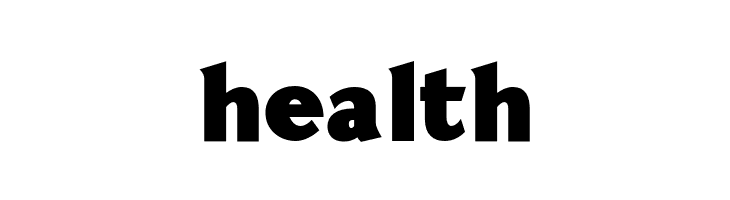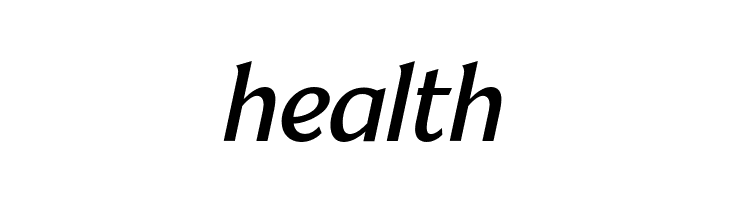
• YorkieDEMO-SemiBoldItalic
A semi-bold italic font with a dynamic and compact style, featuring moderate stroke contrast.
• YorkieDEMO-BoldItalic
A bold and italicized font with strong, dynamic strokes.
• YorkieDEMO-ExtraLight
A refined and elegant font with sleek, elongated characters and a modern twist.
• YorkieDEMO-ExtraBoldItalic
• YorkieDEMO-Thin
A modern, elegant font with thin, elongated letterforms and high contrast strokes.
• YorkieDEMO-MediumItalic
A modern italic font with smooth curves and balanced contrast.
• YorkieDEMO-ExtraBold
A bold and impactful font with strong, thick strokes and a cohesive design.
• YorkieDEMO-Medium
A bold, modern serif font with clean lines and a versatile style.
• YorkieDEMO-Italic
An elegant italic font with smooth curves and a slightly condensed form.
• YorkieDEMO-SemiBold
A bold, modern font with clean lines and a professional appearance.
• YorkieDEMO-Regular
A modern, bold font with clean lines and strong character presence.
• YorkieDEMO-ThinItalic
A thin, italic font with elegant, elongated letterforms and high contrast.
• YorkieDEMO-Bold
A bold, modern font with strong lines and a confident style.
• YorkieDEMO-Light
A modern, elegant font with a clean and sophisticated appearance.
• YorkieDEMO-LightItalic